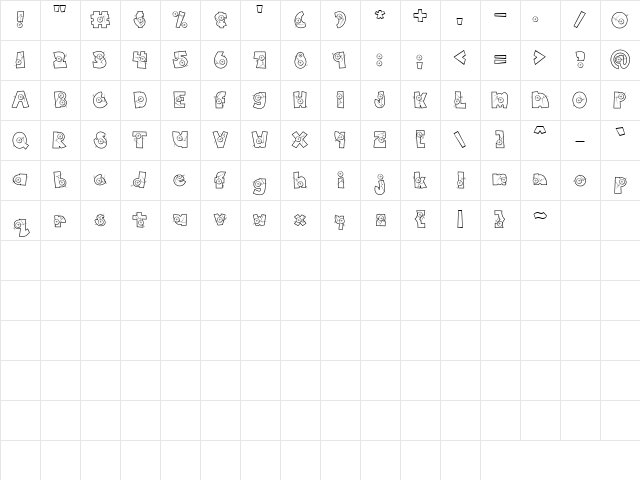
LD Button Regular Free Font
LD Button Regular
Design Context for LD Button
LD Button is a composed and adaptable typeface that performs quietly and consistently across a wide range of design contexts.